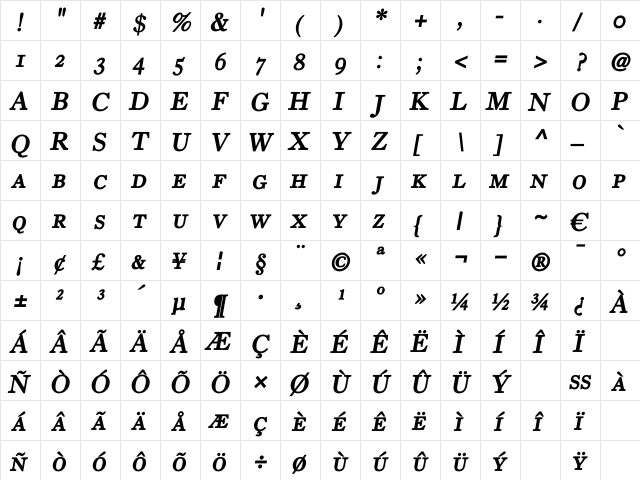
HadronCaps BoldItalic
Design Context for HadronCaps Typeface
HadronCaps takes a measured approach to typography — its balanced proportions and neutral character make it a reliable workhorse for both digital and print work. The slanted form adds forward momentum and visual energy. Its bold stroke weight gives it real presence on the page.
Pro Tip: Try HadronCaps for annotation and caption copy alongside an upright companion — the contrast in angle creates a dynamic but ordered typographic system.